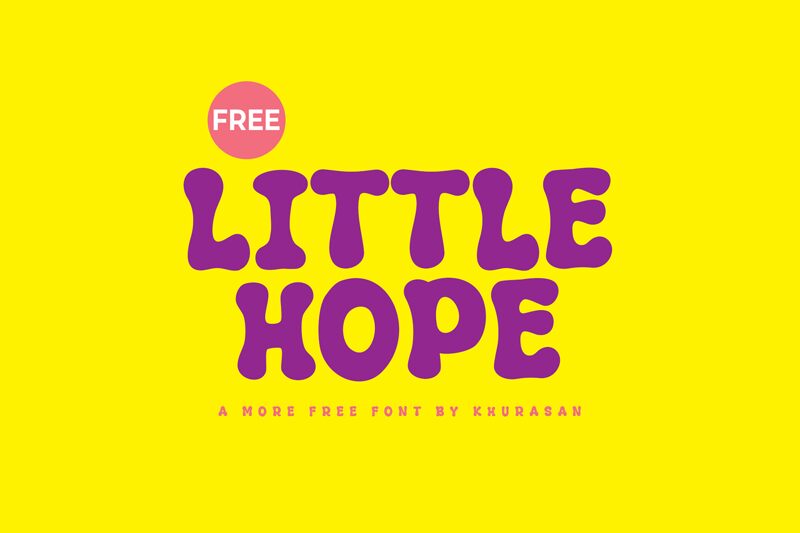
Little Hope
Little Hope font by Khurasan is a free cartoon display typeface with soft, blobby letters that look almost like they’ve been piped out of frosting. Each character swells and squishes into the next, giving titles a bouncy, hand‑made energy that’s playful without becoming chaotic. The heavy black shapes read clearly even at small sizes, while the rounded edges keep everything cozy and kid‑friendly.
Using Little Hope, you can instantly brighten children’s book covers, classroom posters, birthday invitations, toy packaging, game titles, and YouTube thumbnails. This free font works beautifully when you let it shout in big, bold headlines, then pair it with a simple geometric sans for supporting text. Keep colors bright and backgrounds clean, and Little Hope will do the rest of the storytelling.